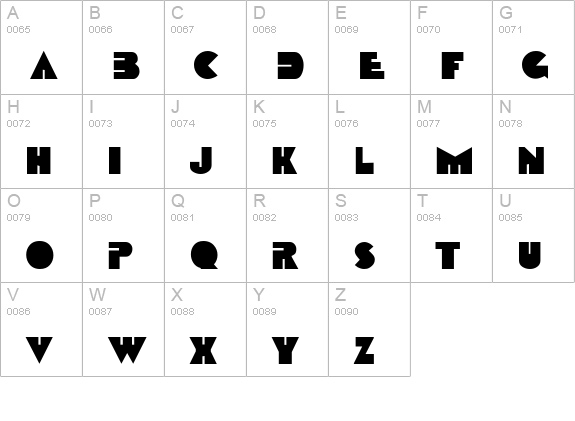
SharkTooth Regular Font Details
SharkTooth Regular is the standard, neutral variant in the SharkTooth typeface family \xE2\x80\x94 well suited to general body text, paragraphs, and standard typographic work.
SharkTooth Regular font is a stunning typeface that captures the ferocity and elegance of the mighty shark. With its sharp and bold letterforms, this font commands attention and adds a touch of edge to any design project. The distinct and jagged aesthetics of SharkTooth Regular make it perfect for creating eye-catching headlines, logos, posters, and branding materials. Whether you're looking to convey a sense of power, strength, or adventure, this font is sure to make a lasting impression. What sets SharkTooth Regular apart is not only its striking design but also its accessibility. This font is freely available to download at FontsMarket.com, allowing designers of all levels to unleash their creativity without any financial constraints. Now, you can create stunning designs without worrying about breaking the bank. In addition to its affordability, SharkTooth Regular offers a wide range of glyphs and characters, including uppercase and lowercase letters, numbers, punctuation marks, and special symbols. This versatility ensures that you have all the tools you need to bring your vision to life. So, dive into the world of SharkTooth Regular font and discover the power it holds. Let its sharp edges and bold presence captivate your audience and leave a lasting impression on any project you undertake. Remember, this font is freely available to download at FontsMarket.com, making it a valuable asset for designers seeking to make a statement without compromising on quality.